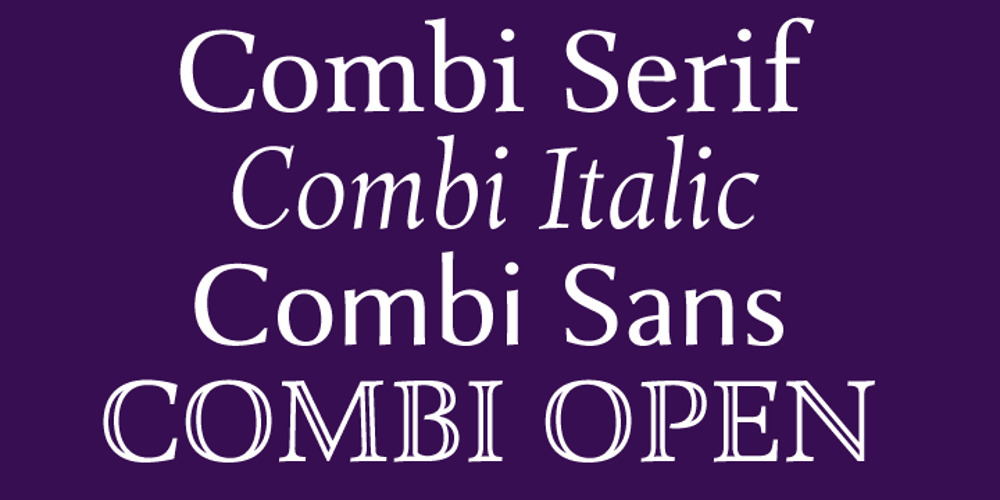
Combi
Combi font
Combi Font Family was designed by Nicholas Garner and published by AVP. Combi contains 26 styles and family package options. The Combi collection includes Sans, Sans Oblique, a true Italic, Serif, Serif Oblique and a set of Openface capitals. Combi fonts have 5 compatible weights and metrics allowing them to be used in free combination. Inspiration came from Jan Van Krimpen’s ‘Romulus’ (Enschedé, 1931). In addition to the Roman style, Van Krimpen created a set of open capitals, a simple oblique variant and subsequently, an attractive calligraphic italic, Cancelleresca Bastarda. In addition to Van Krimpen’s idea, Combi has been influenced by features from many faces including Bembo, Melior and Optima. The object was to create a versatile family of body text and titling faces for use in books, magazines and on the web. Glyphs are available for most Latin based languages and all text fonts include small caps, proportional numerals and other Opentype features.